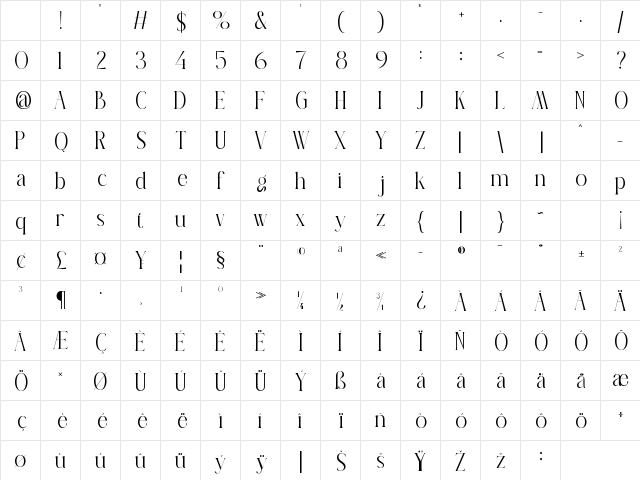
Veminit Regular
Designer: SlideShoot 2022
Design Context for Veminit
Veminit is a composed and adaptable typeface that performs quietly and consistently across a wide range of design contexts.